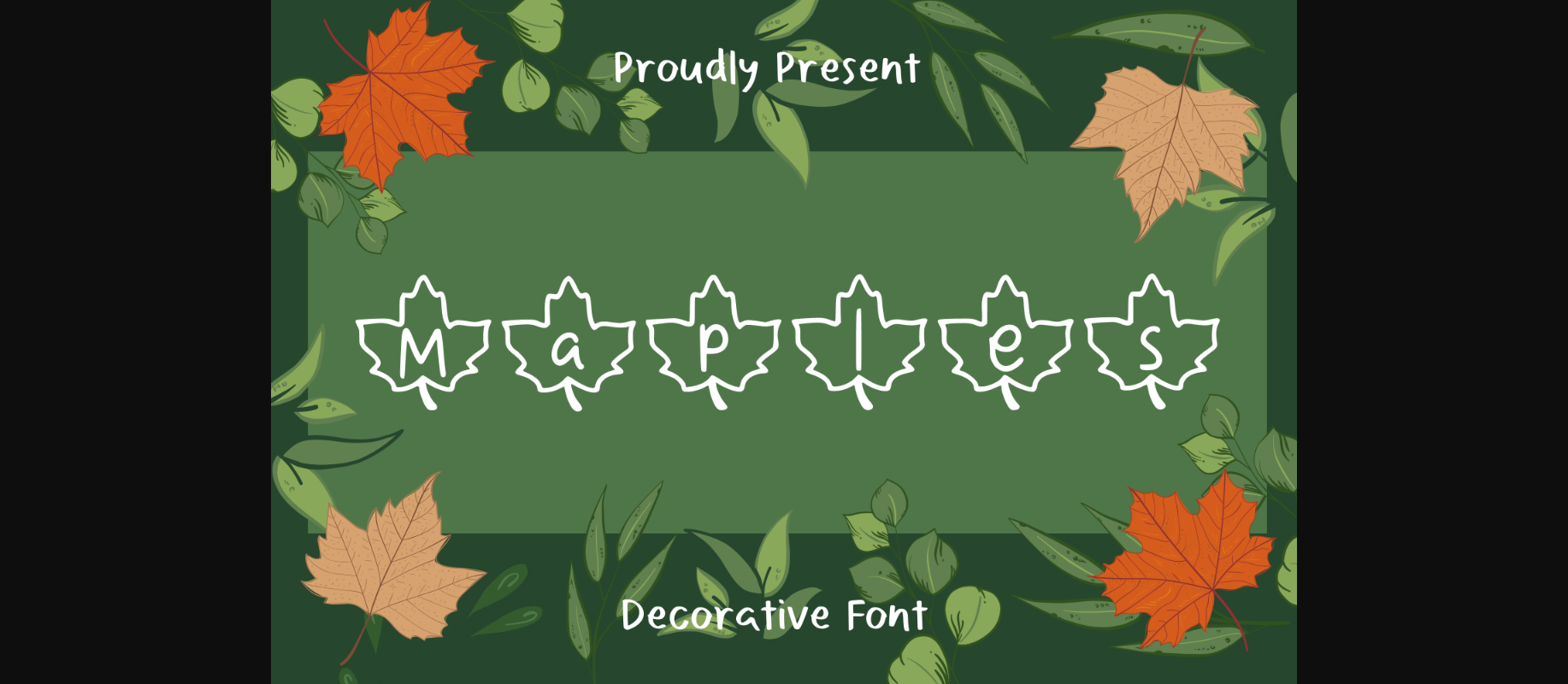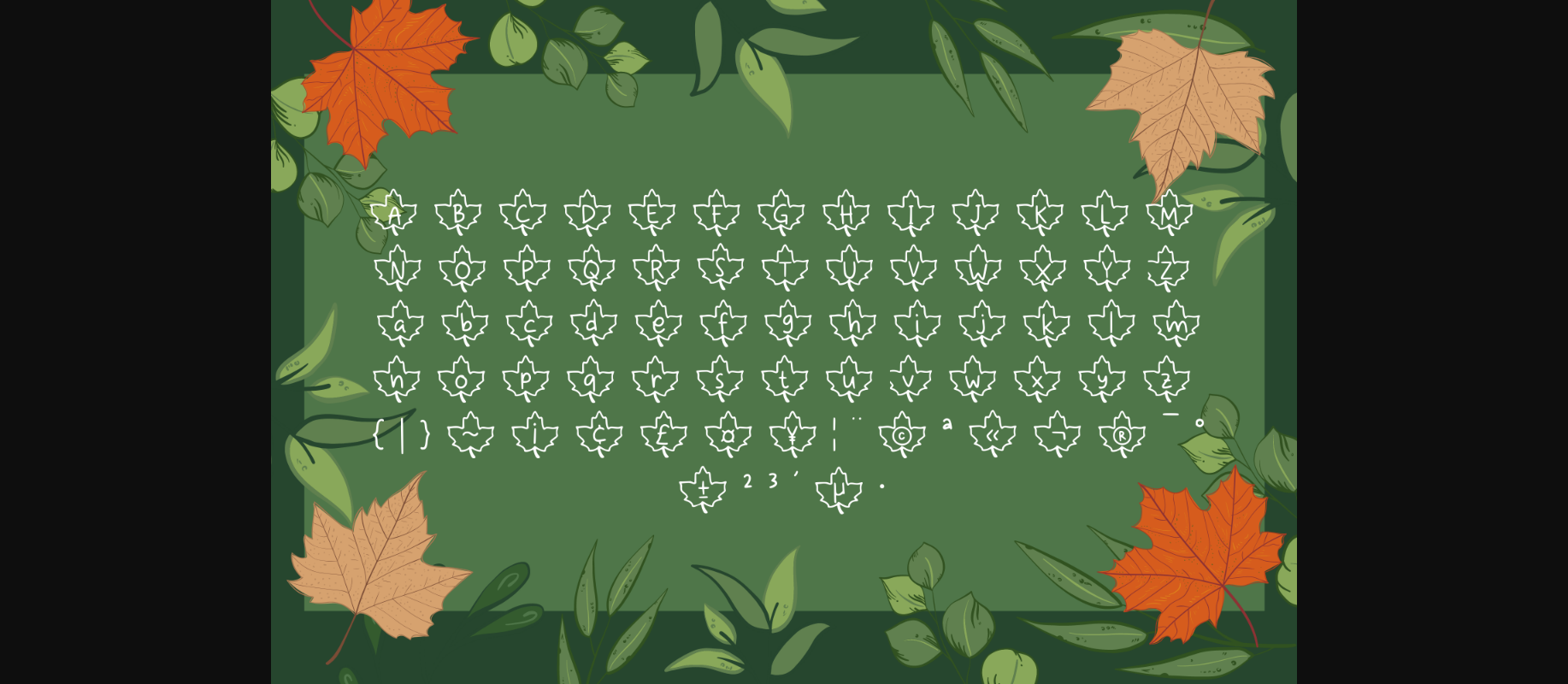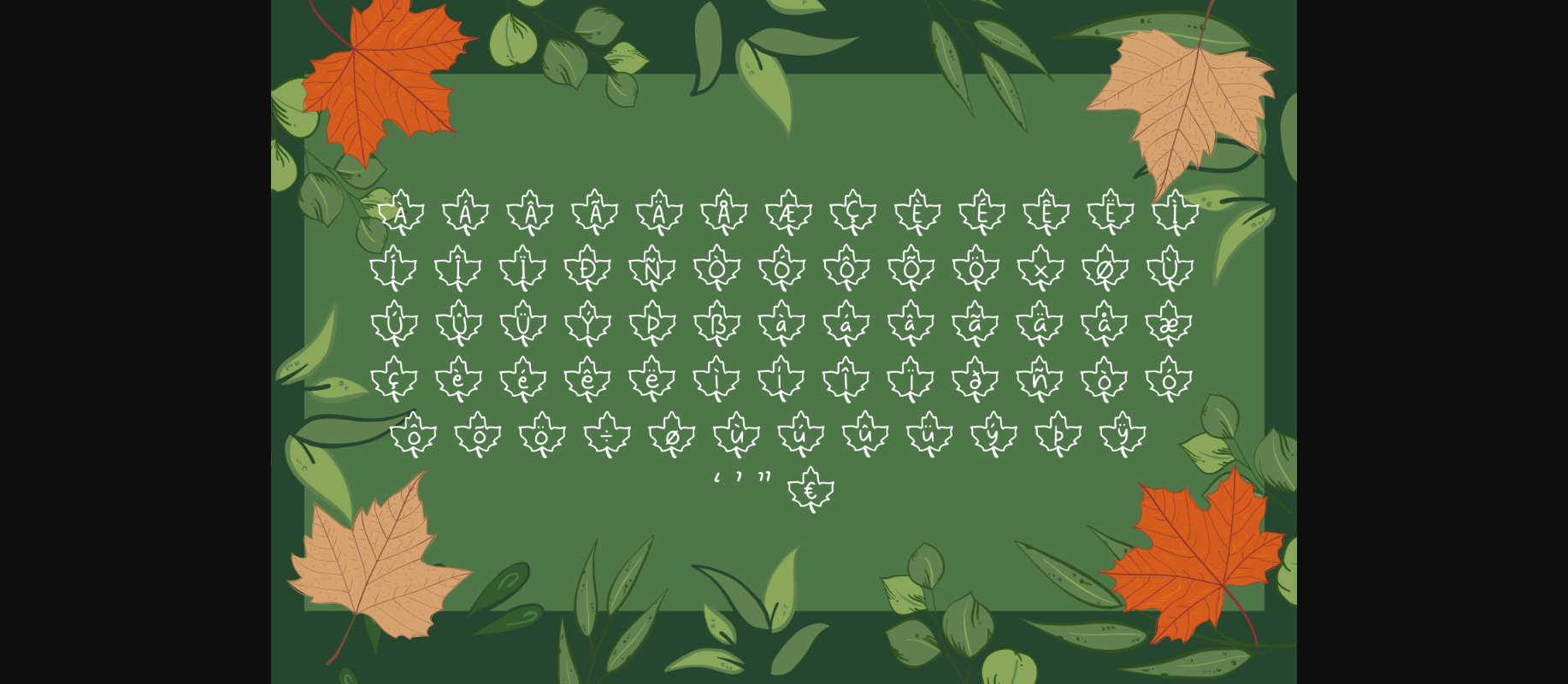
About Maples Font
Maples is an incredibly unique and detailed decorative font. Whether you’re using it for crafting, digital designing, presentations or greeting cards making, it’s perfect!